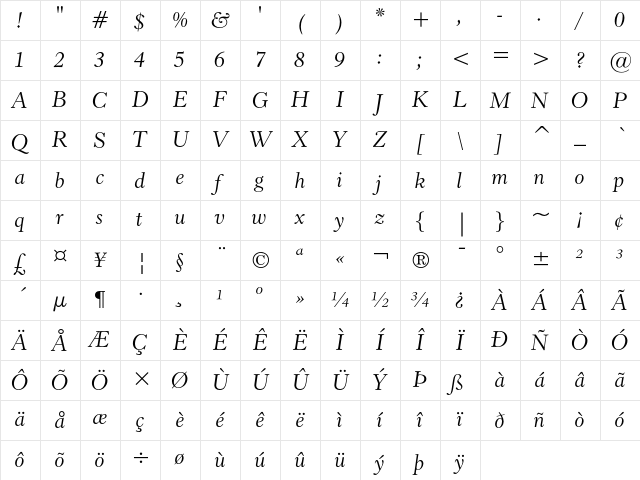
Revival 555 Italic
Revival 555 Italic Family
Design Context for Revival 555
Revival 555 is a composed and adaptable typeface that performs quietly and consistently across a wide range of design contexts. The slanted form adds forward momentum and visual energy.
Pro Tip: Use Revival 555 for emphasis, pull quotes, and subheadings where its slanted energy can add rhythm to the layout.